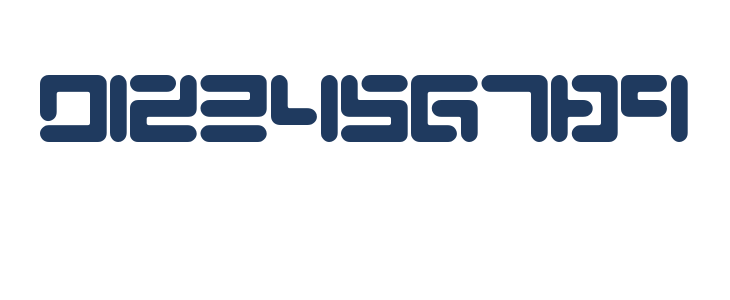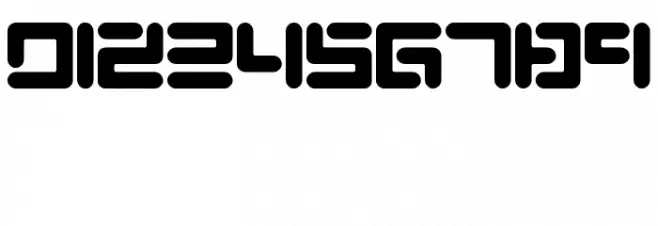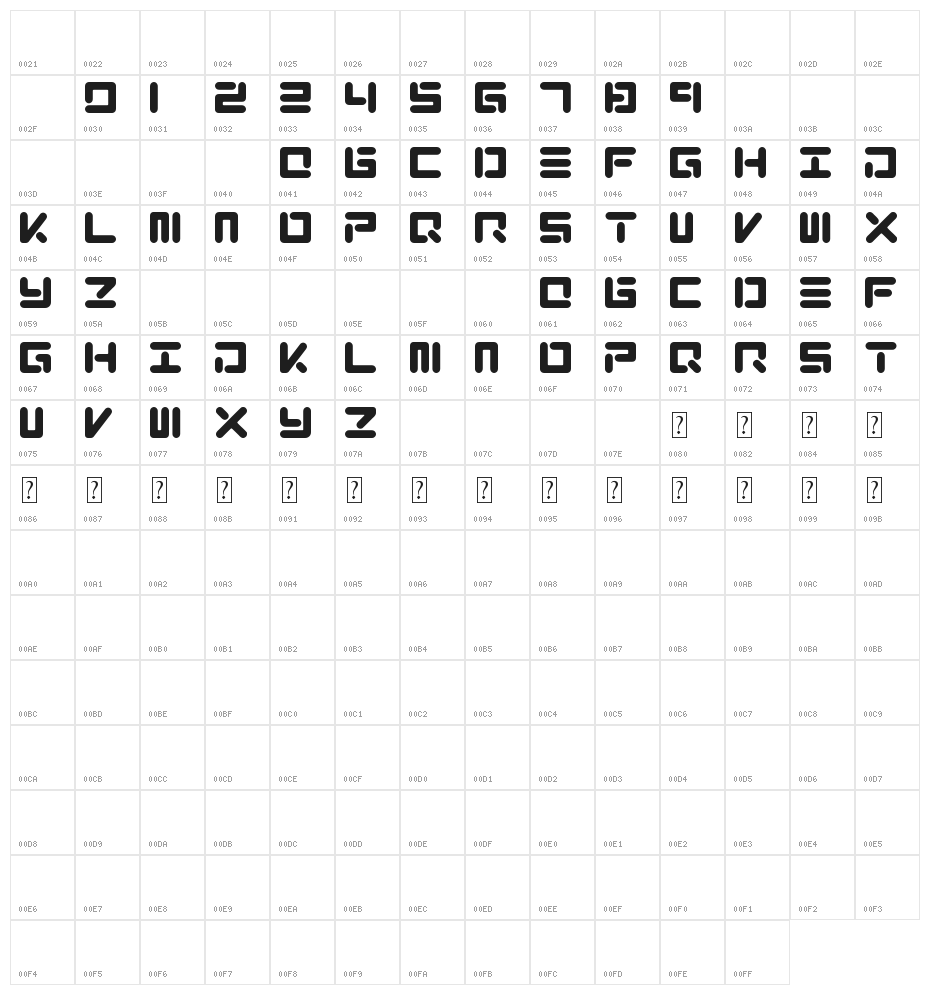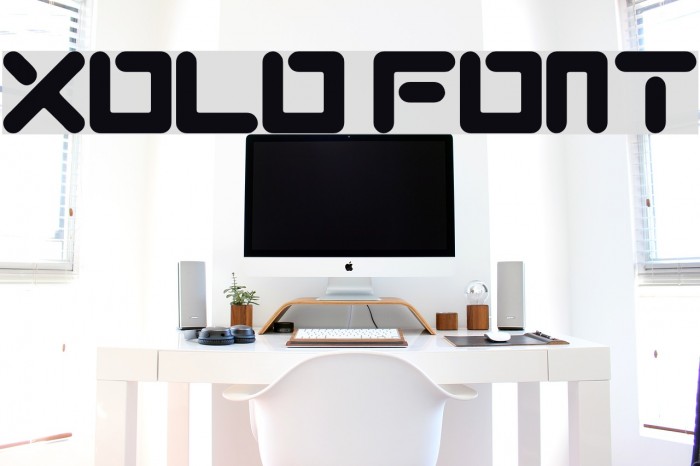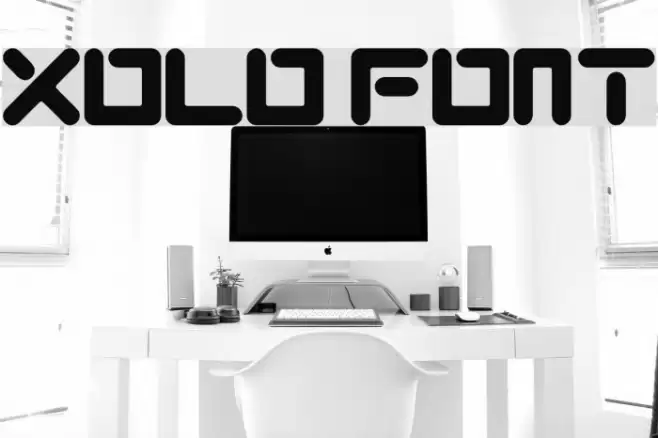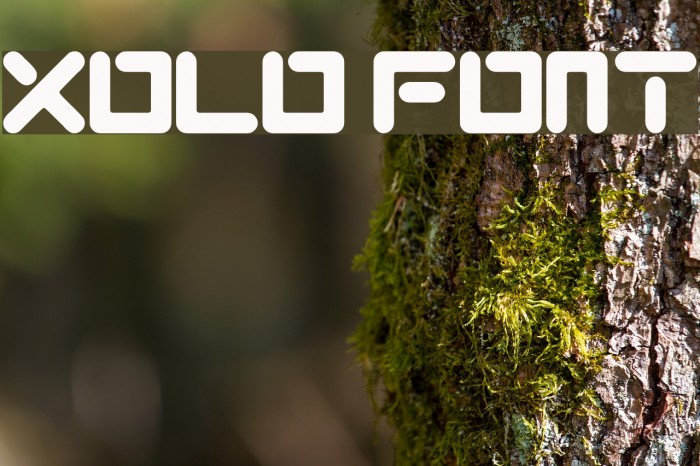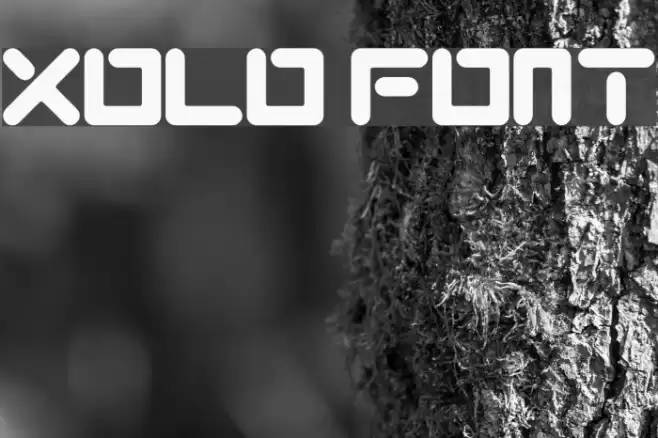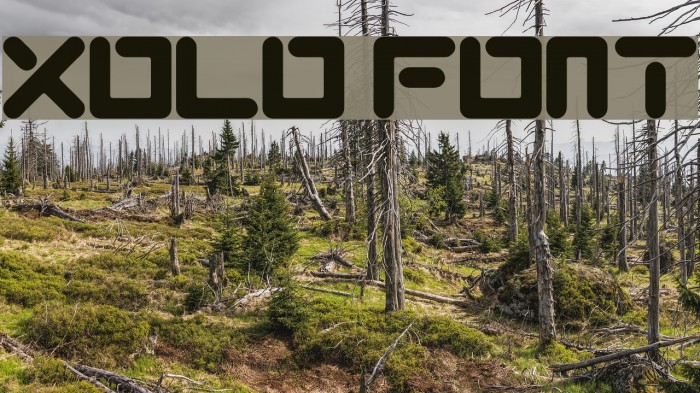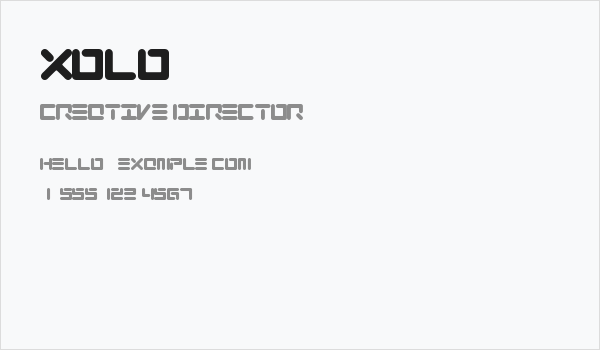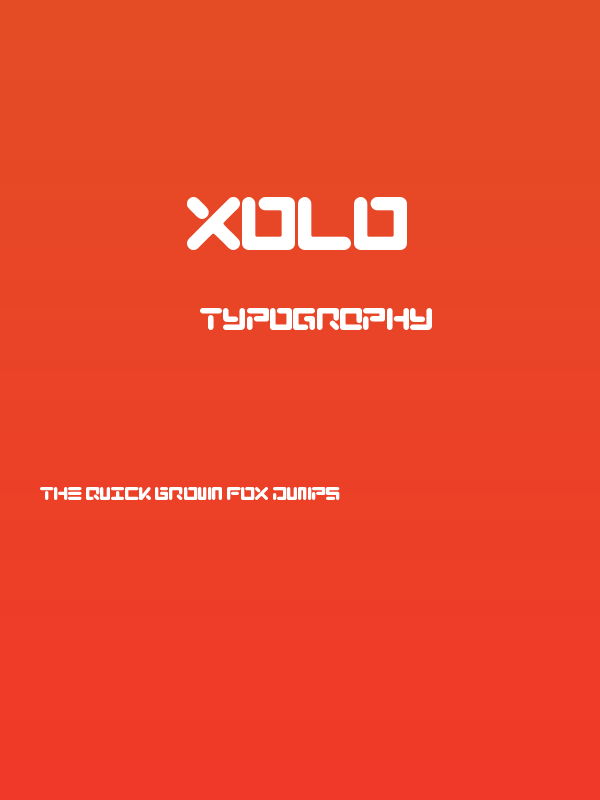
XOLO Font
XOLO Description
This font features a futuristic and geometric design, characterized by its bold, rounded shapes and consistent stroke width. The letters are constructed with a modular aesthetic, giving them a digital and tech-inspired appearance. The uniformity in the design creates a cohesive look, with each character maintaining a similar height and width, contributing to its modern and sleek style. The absence of serifs and the use of rounded corners add to its contemporary feel, making it suitable for projects that require a cutting-edge and innovative look.
| Proposed Projects | Ideal for tech branding, digital interfaces, video game titles, and futuristic-themed posters. |